Best Condensed Fonts with download links.📣
The creative YouTube thumbnail is best served by condensed fonts like Bebas Neue. They come with a tall, sleek design which is sure to take people’s attention while keeping all your text amazingly clean and readable even on smaller screens.
Alvaro Font
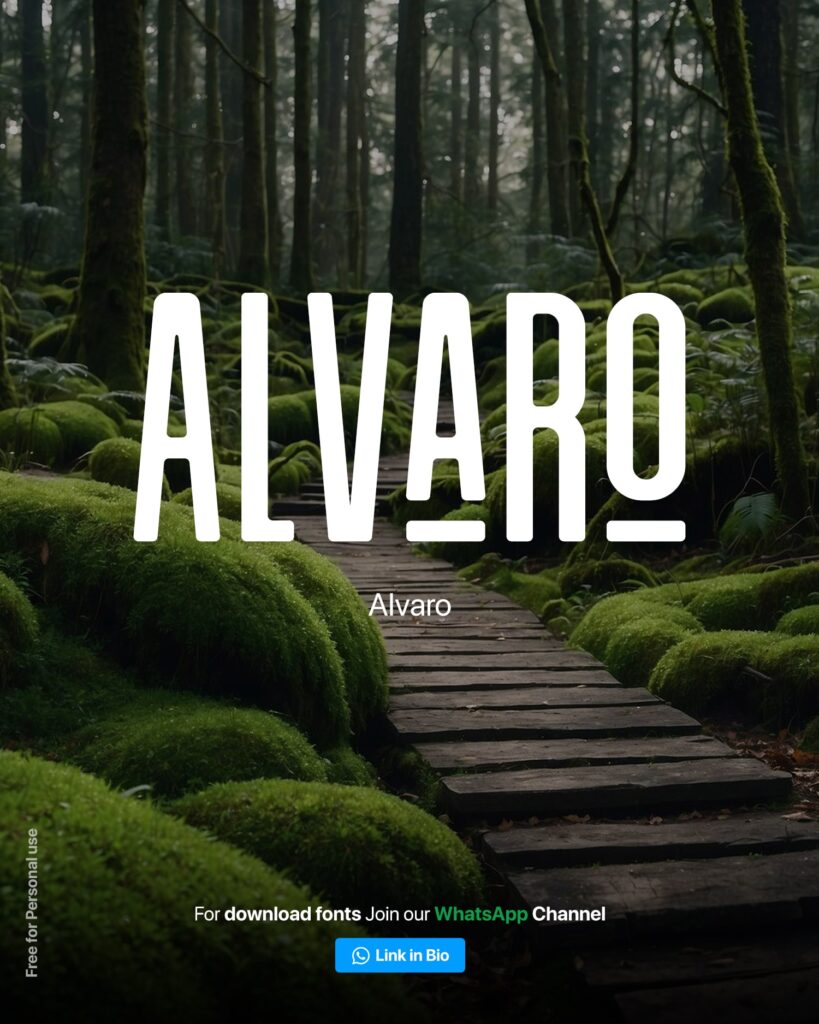
Blaccious Font
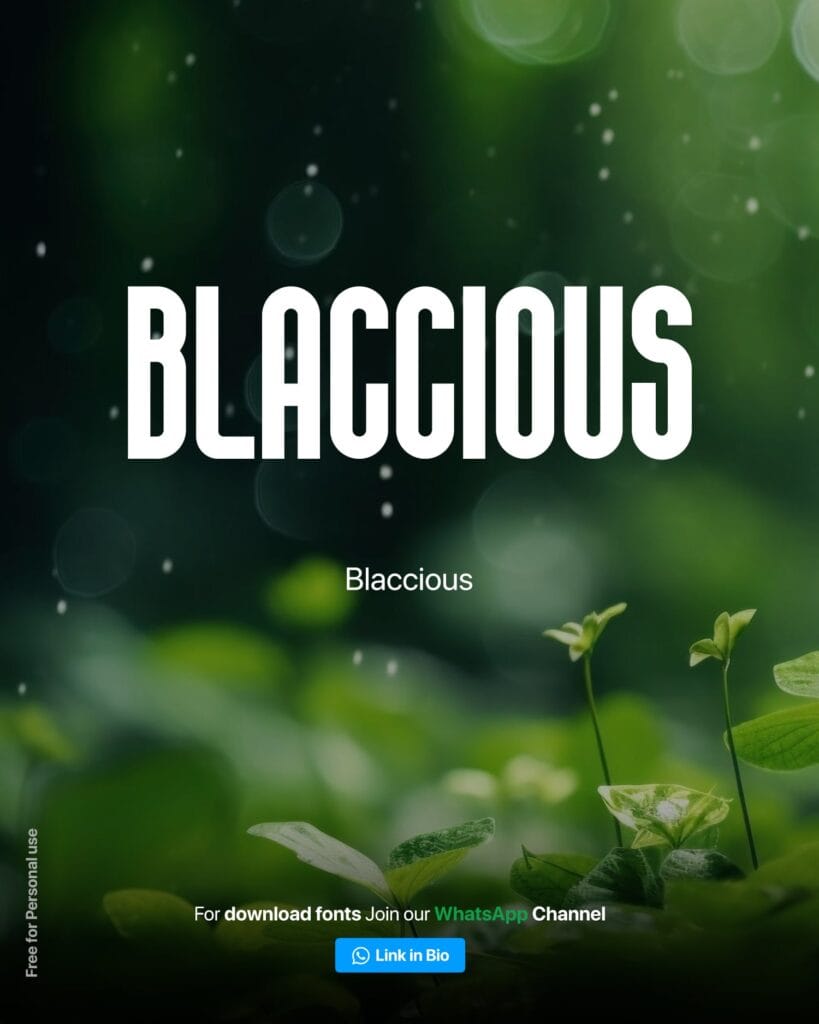
Blonden Font
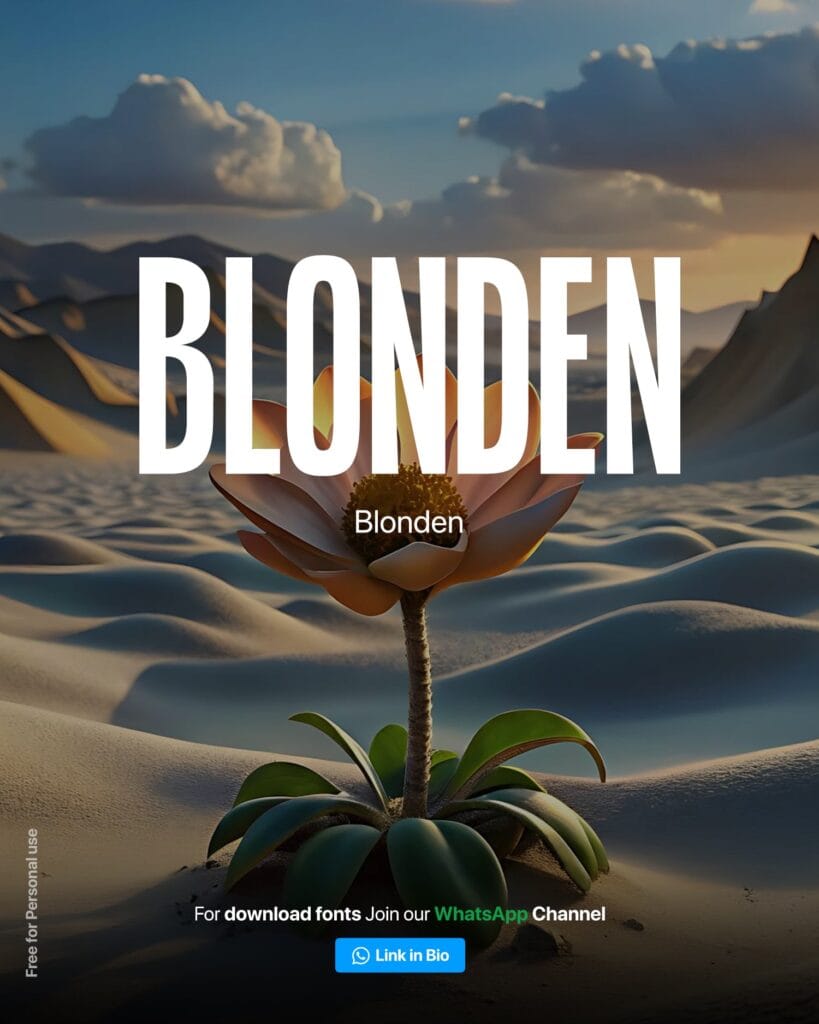
Highrise font
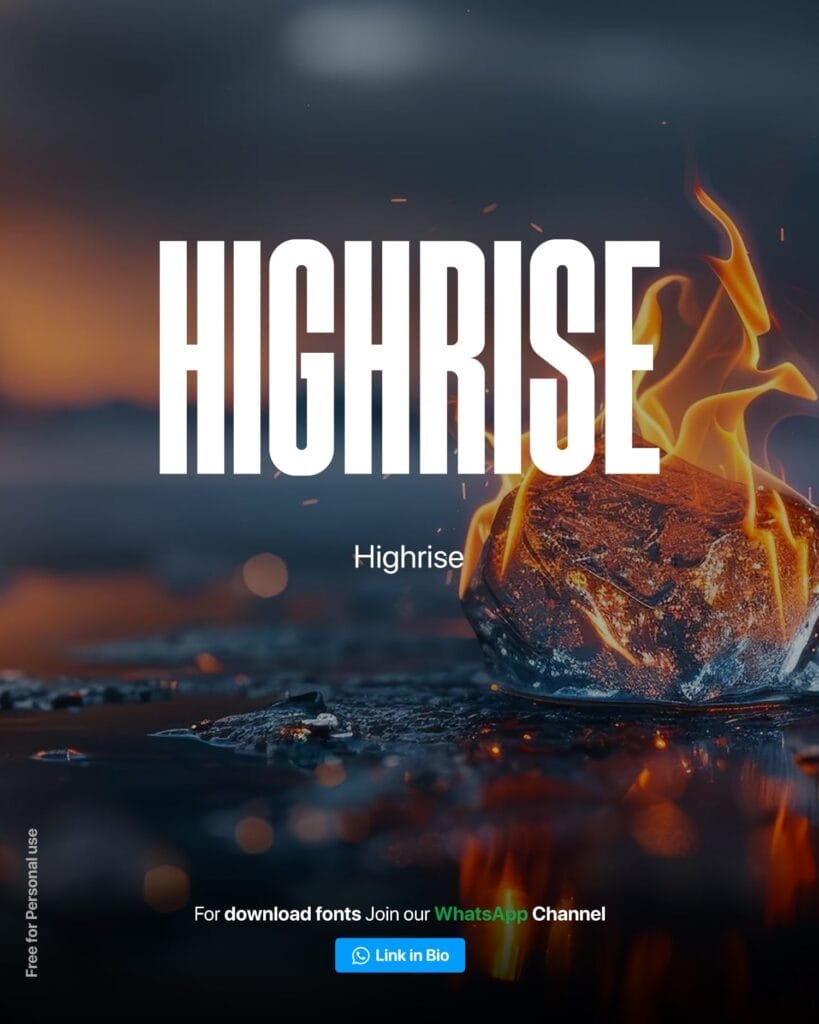
Humane Font
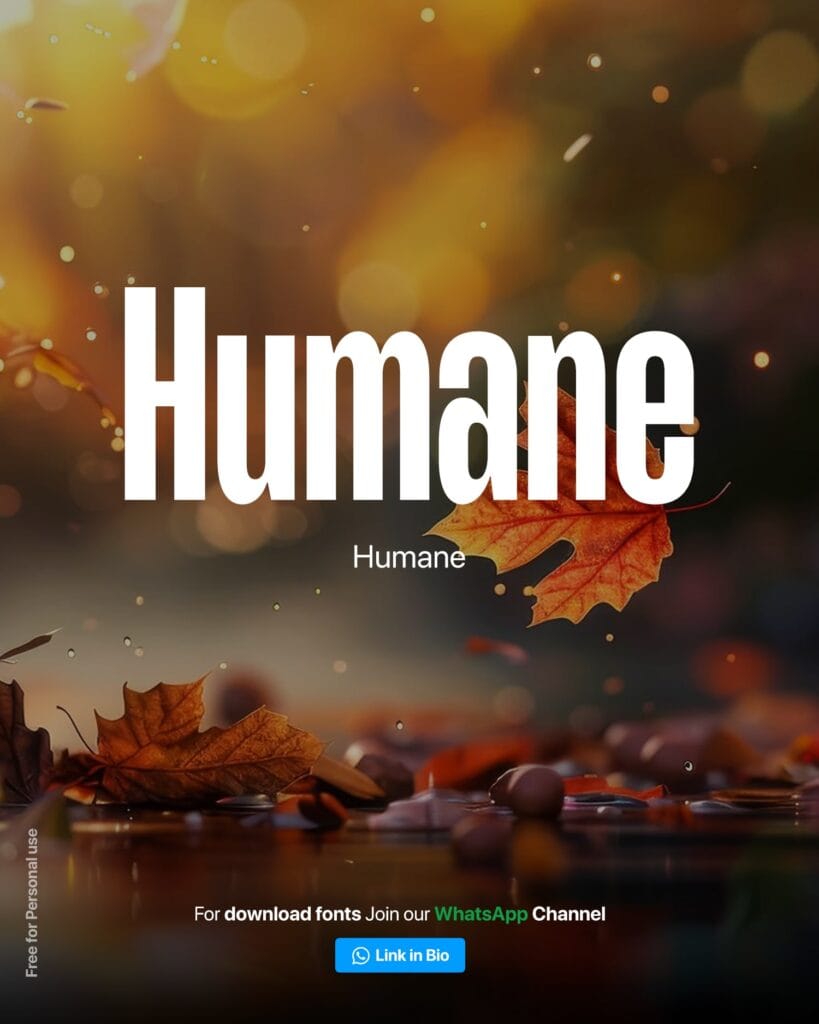
Rooster Font